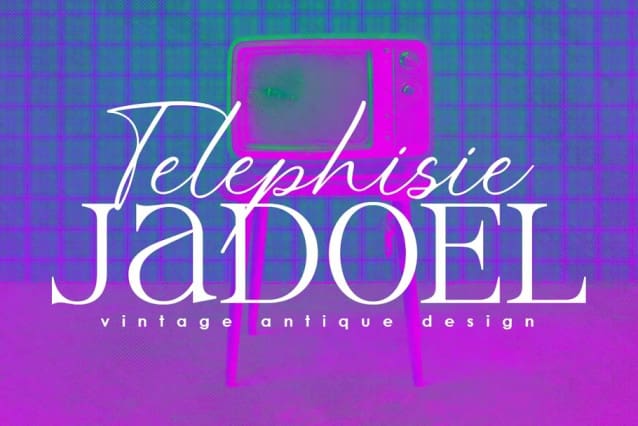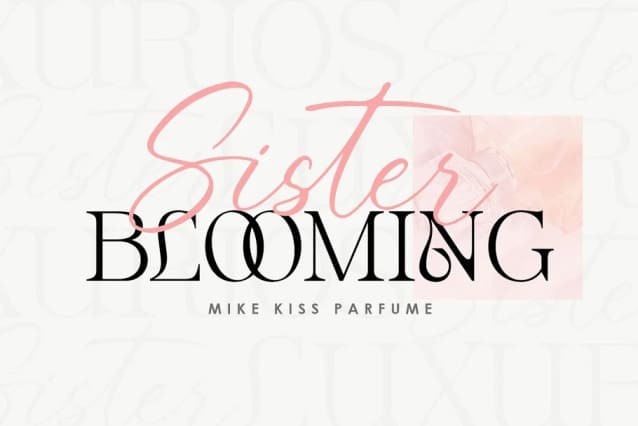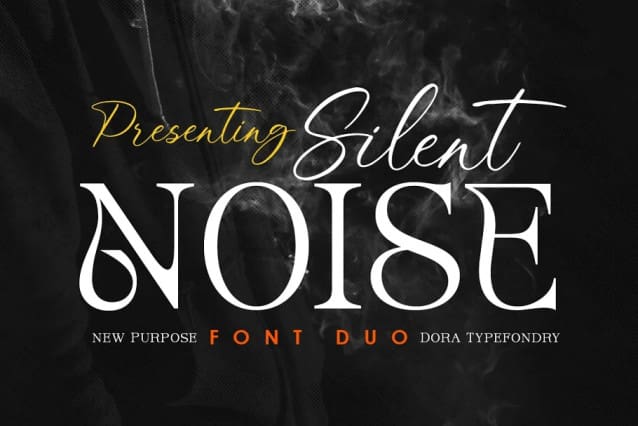
Silent Noise Font
Silent Noise Font, a stunning duo font that combines the timeless elegance of a serif typeface with the flowing elegance of calligraphy. This versatile font set includes two complementary styles that work together seamlessly to add sophistication and charm to your design projects, so you can create logos, social media posts, invitations, branding, magazines, product packaging and many other projects.